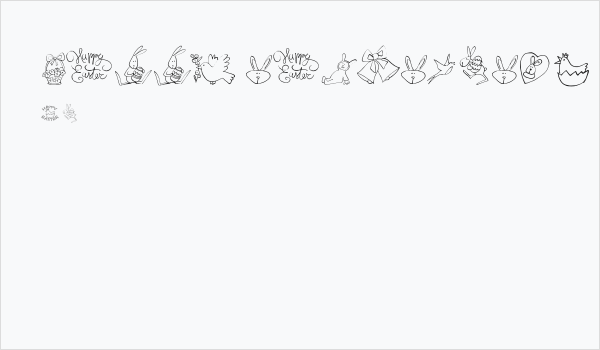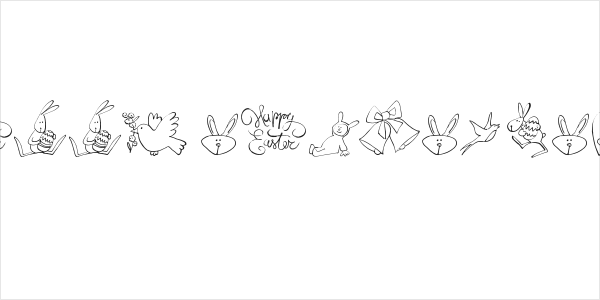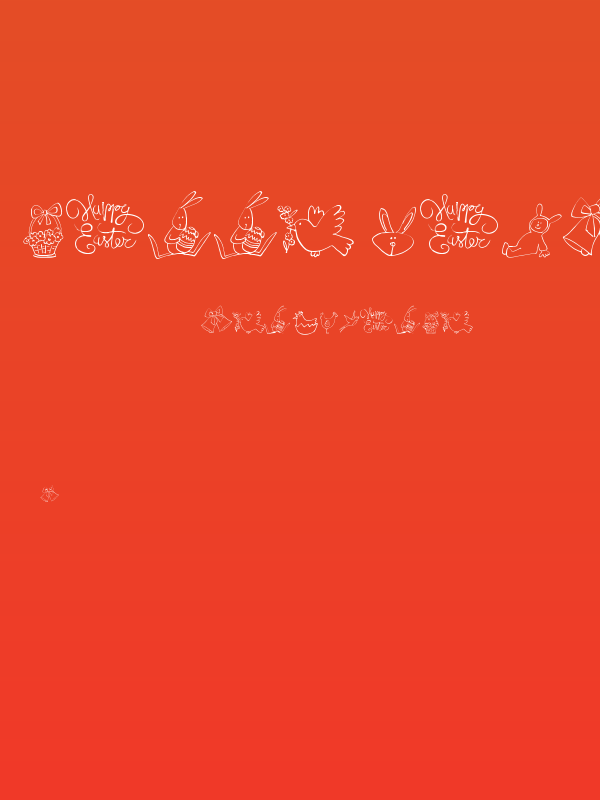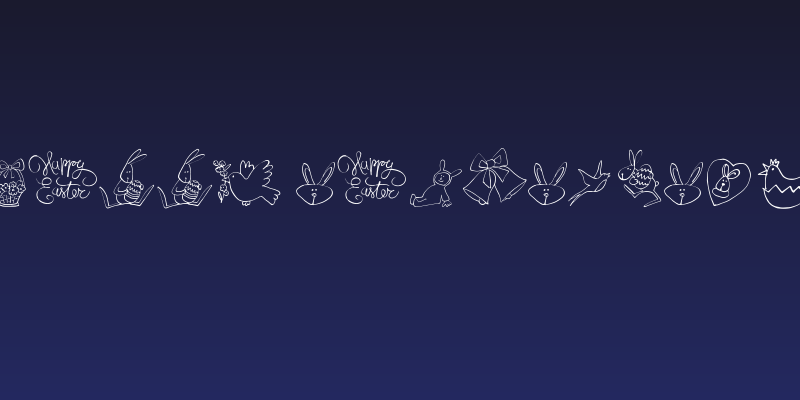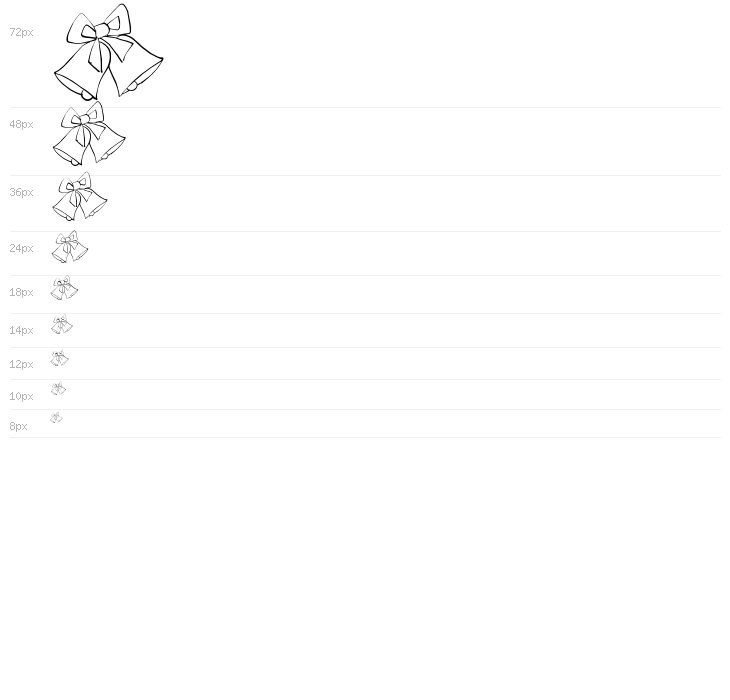
HAPPY EASTER_DEMO Font
HAPPY EASTER_DEMO Description
This font is a playful and decorative collection of Easter-themed illustrations and text. It features whimsical designs including bunnies, eggs, chicks, and festive lettering. The style is hand-drawn with a light-hearted and cheerful vibe, perfect for holiday celebrations. The characters are not traditional alphabet letters but rather a series of themed graphics that convey a sense of fun and festivity. The font is ideal for creative projects that require a touch of seasonal charm and a unique visual appeal.
Use CaseLogos, Headlines, Decorative elements
Proposed ProjectsIdeal for Easter cards, holiday invitations, festive banners, and seasonal decorations.